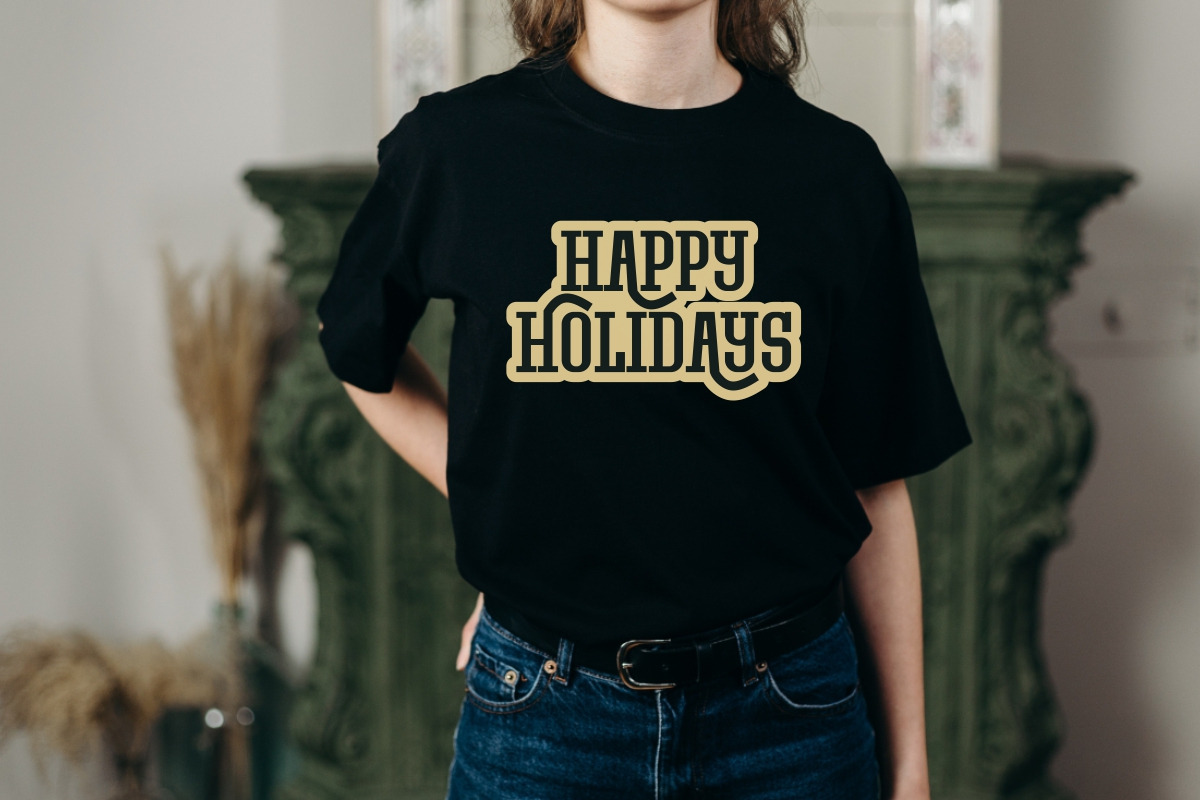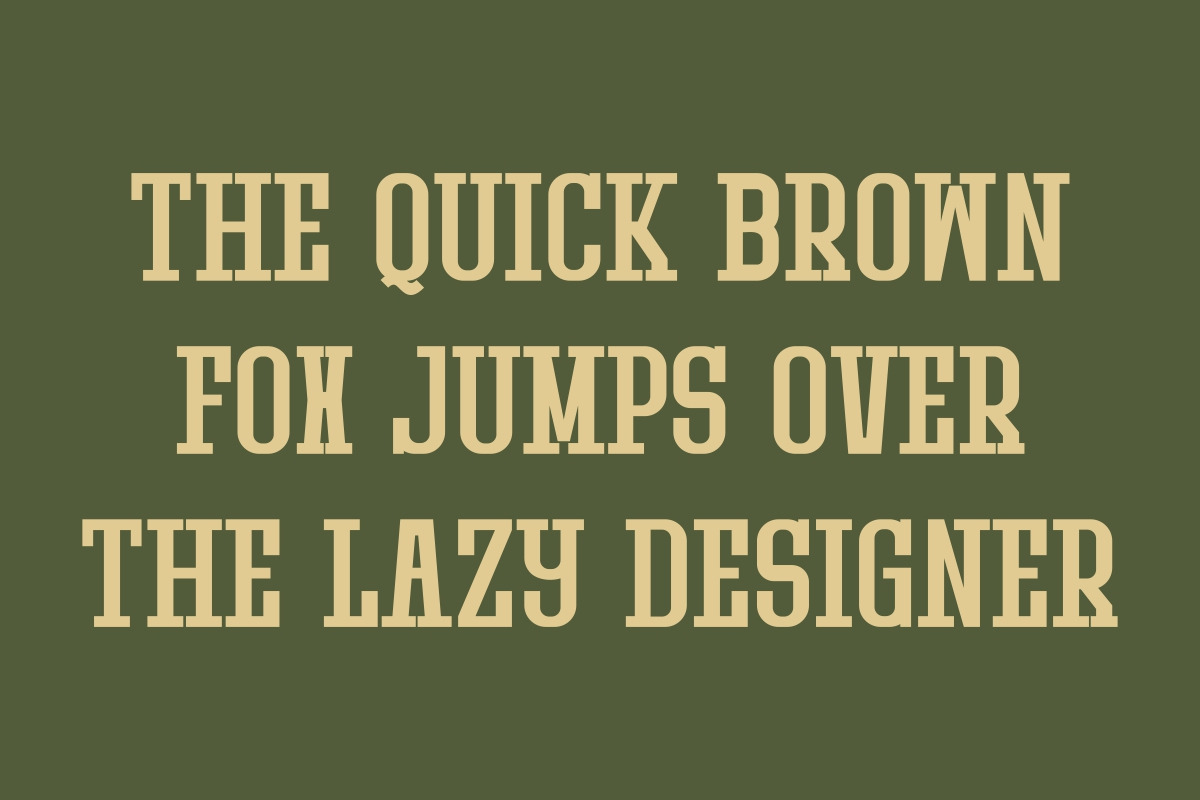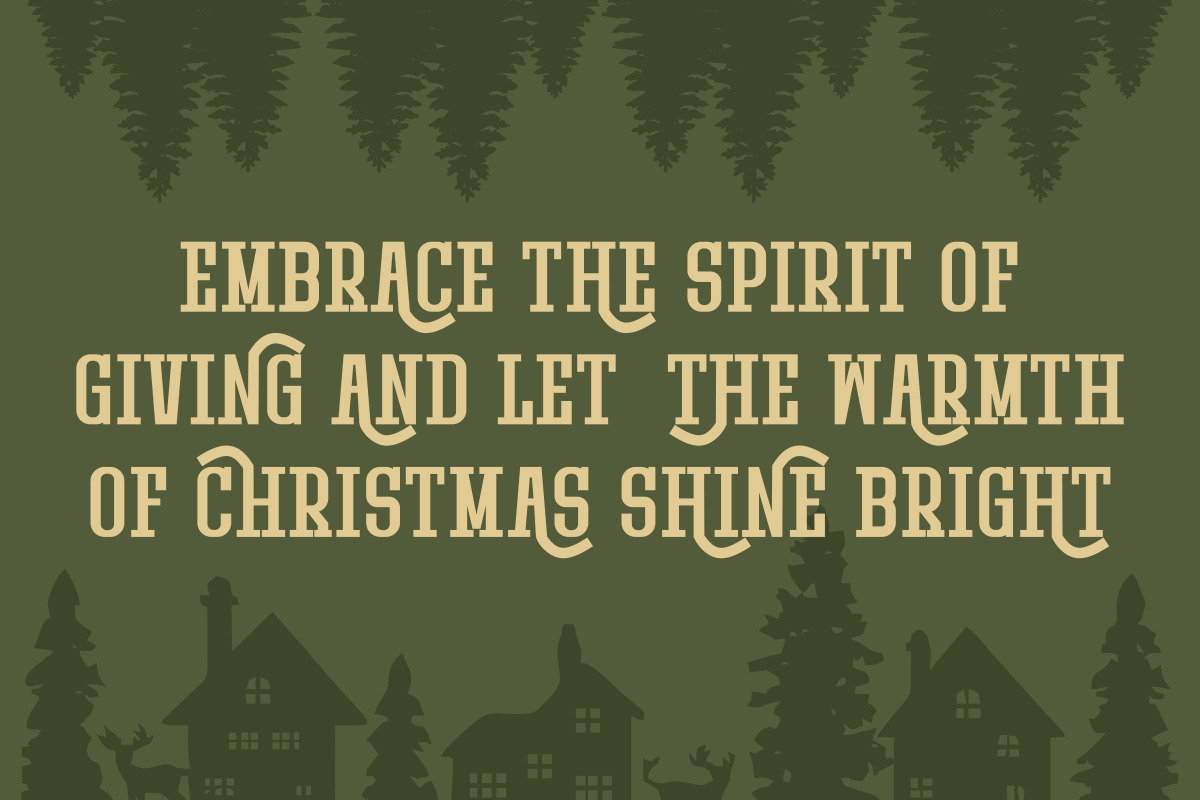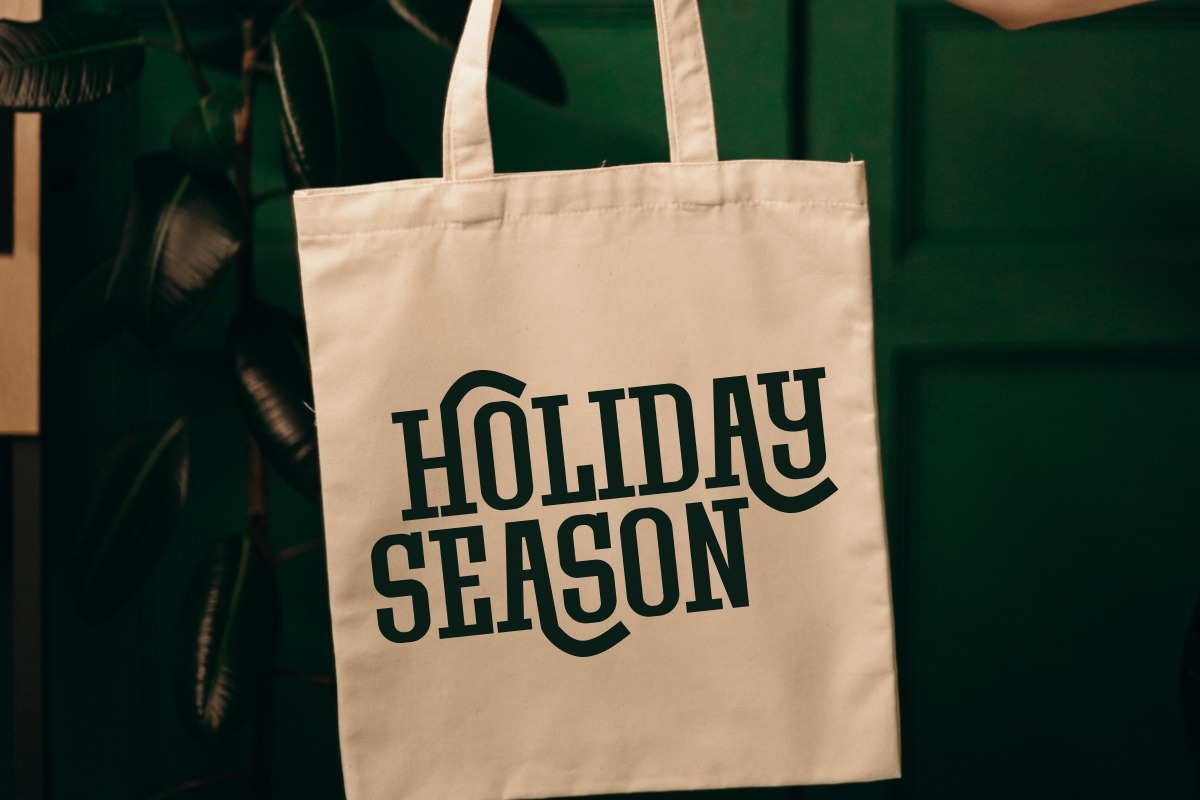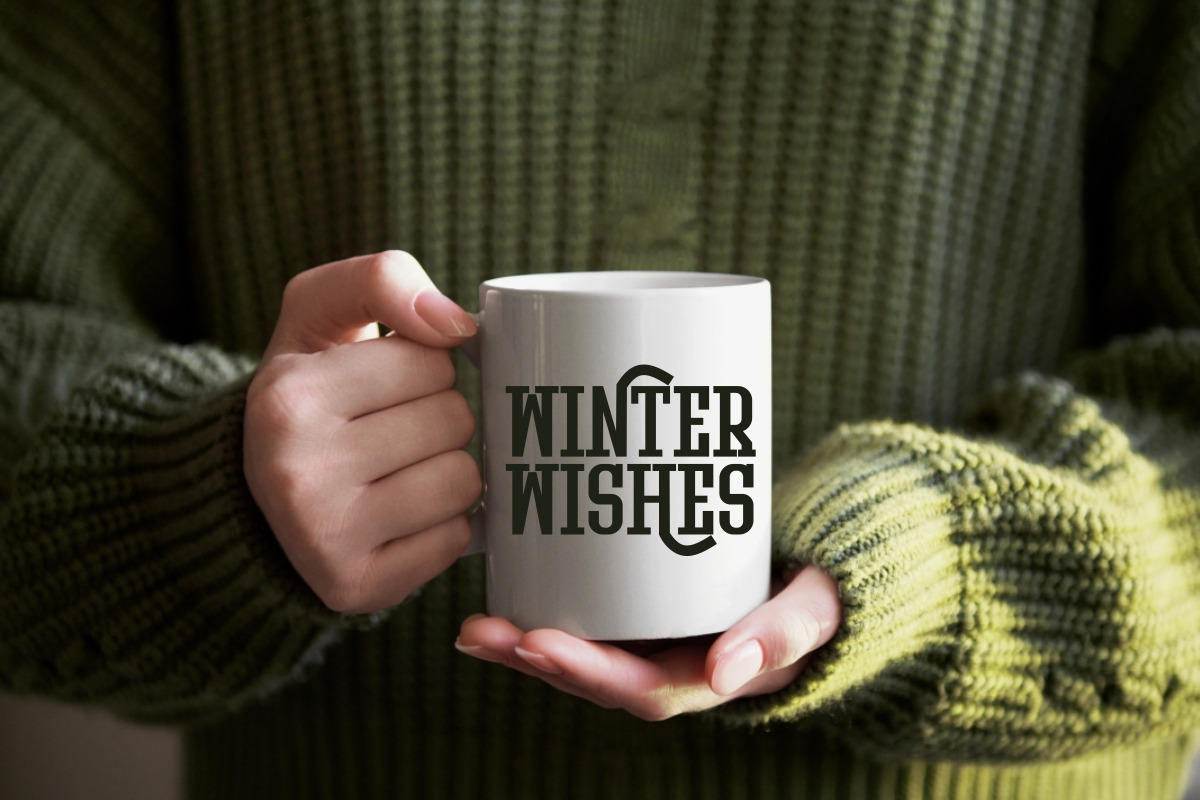
Mountain Christmas - Modern Slab
Mountain Christmas is a modern slab serif font that combines the festive spirit of Christmas with rugged mountain vector. Perfect for holiday quotes, greeting cards, posters, and apparel mockup like T-shirts, mugs, tote bags and tumbler wraps. This font brings a unique, cozy and adventurous charm to any design, making it perfect for outdoor-themed projects.